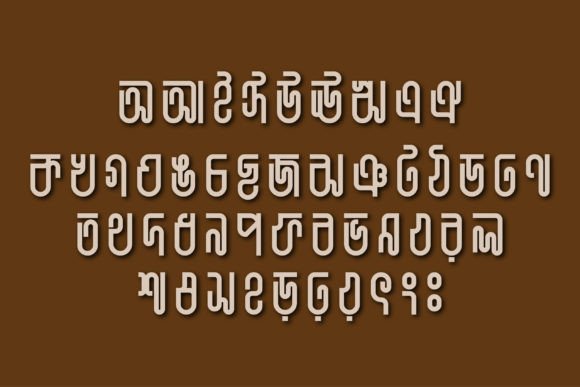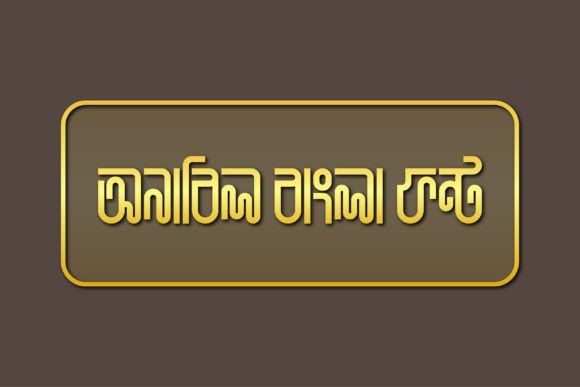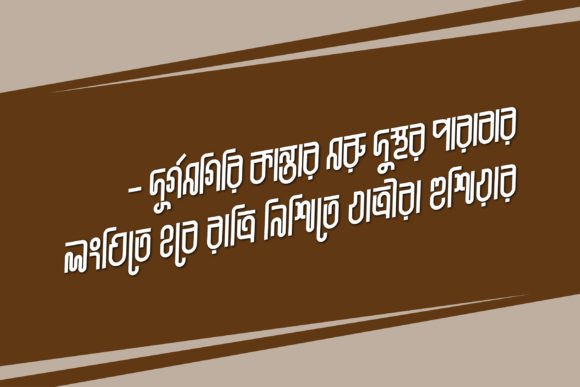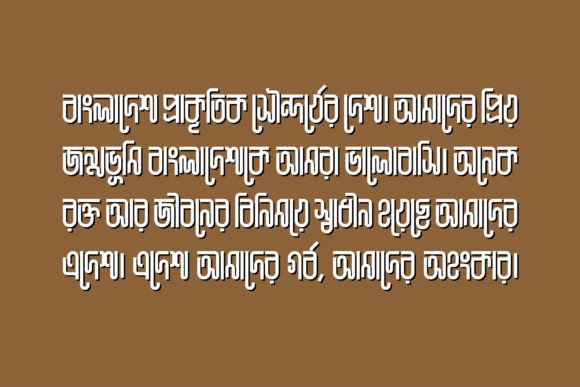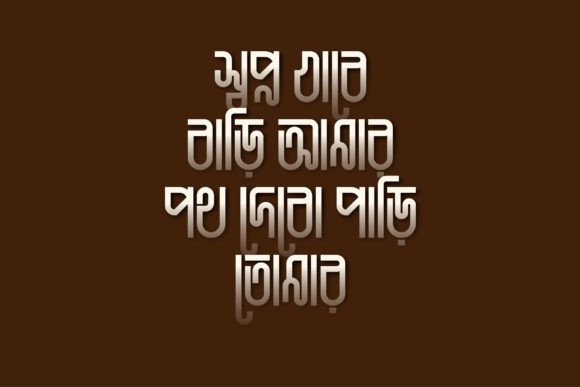
Introducing Anabil: The Ultimate Bangla Sans-Serif Font for Modern Design
In the world of typography, a font can make or break a design. For Bangla language users, finding the perfect font that combines elegance, readability, and versatility can be a daunting task. However, with the introduction of Anabil (অনাবিল বাংলা ফন্ট), a sophisticated Bangla sans-serif font, designers and crafters can now elevate their work to new heights. In this article, we’ll explore the features, benefits, and uses of Anabil, the ultimate font for industrial-quality applications.
What is Anabil Font?
Anabil is a meticulously crafted Bangla sans-serif font designed for modern applications. Its clean and sleek design makes it perfect for enhancing titles, book covers, T-shirt designs, websites, and mobile apps. With an extensive character set, including 424 glyphs and 196 unique characters, Anabil offers unparalleled flexibility and creativity for designers.
Key Features of Anabil Font
- Extensive Character Set: Anabil boasts an impressive character set, comprising 424 glyphs and 196 unique characters, ensuring that designers have access to a wide range of typographic options.
- Sophisticated Design: Anabil’s sans-serif design exudes elegance and sophistication, making it perfect for high-end applications, such as luxury brands, magazines, and editorial design.
- Industrial-Quality: Anabil is designed with industrial-quality applications in mind, ensuring that it performs flawlessly in a variety of mediums, from print to digital.
- Multilingual Support: Anabil supports multiple languages, making it an excellent choice for designers working on international projects or targeting diverse audiences.
Benefits of Using Anabil Font
So, why choose Anabil over other Bangla fonts? Here are just a few benefits of using Anabil:
- Enhanced Readability: Anabil’s clear and concise design ensures that text is easily readable, even at small font sizes.
- Versatility: Anabil’s extensive character set and sophisticated design make it suitable for a wide range of applications, from print to digital.
- Time-Saving: With Anabil, designers can save time and effort, as the font’s versatility and range of characters eliminate the need for multiple font changes.
- Professionalism: Anabil’s industrial-quality design and extensive character set ensure that designs look professional and polished.
Use Cases for Anabil Font
Anabil’s versatility makes it suitable for a variety of applications, including:
- Title Design: Anabil’s bold and elegant design makes it perfect for title design, adding a touch of sophistication to any project.
- Book Covers: Anabil’s sans-serif design and extensive character set make it an excellent choice for book covers, ensuring that titles and author names stand out.
- T-Shirt Design: Anabil’s bold and modern design makes it perfect for T-shirt design, adding a touch of style and sophistication to any apparel.
- Web Design: Anabil’s clean and readable design makes it suitable for web design, ensuring that text is easily readable on a variety of devices.
- Mobile App Design: Anabil’s versatility and range of characters make it an excellent choice for mobile app design, ensuring that text is easily readable on smaller screens.
| Font Name | Anabil (অনাবিল বাংলা ফন্ট) Font |
| Author | Abuhasnat |
In conclusion, Anabil (অনাবিল বাংলা ফন্ট) is a game-changing Bangla sans-serif font that offers unparalleled versatility, elegance, and sophistication. With its extensive character set, sophisticated design, and industrial-quality applications, Anabil is the perfect choice for designers and crafters looking to elevate their work. Whether you’re working on a title design, book cover, T-shirt design, website, or mobile app, Anabil is the ultimate font for modern design.